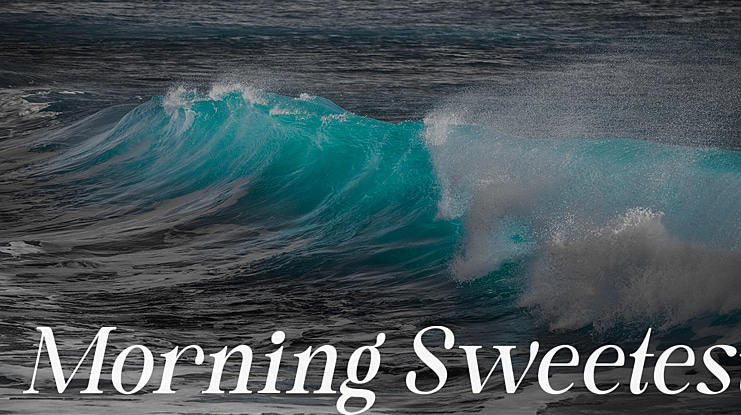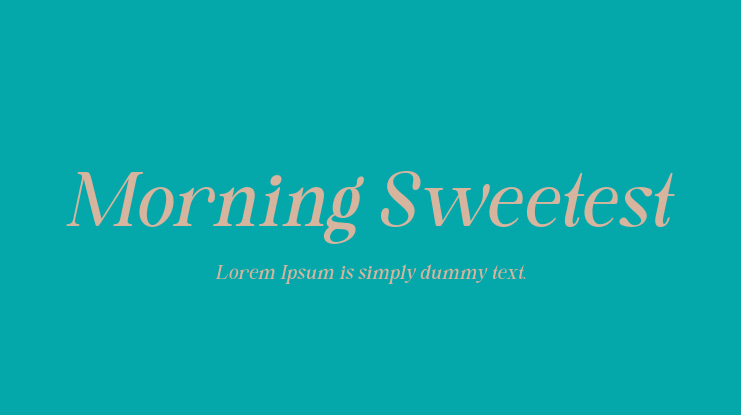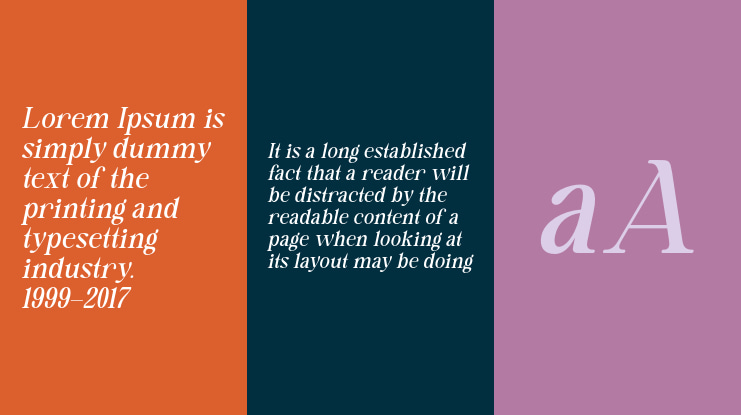
Morning Sweetest Font
This is a vintage-inspired serif typeface with delicate details. It’s clean and smooth with 9 variable weight combining the regular and italic and much alternative inside. Suitable to create any branding, product packaging, invitation, quotes, t-shirt, label, poster, logo etc.